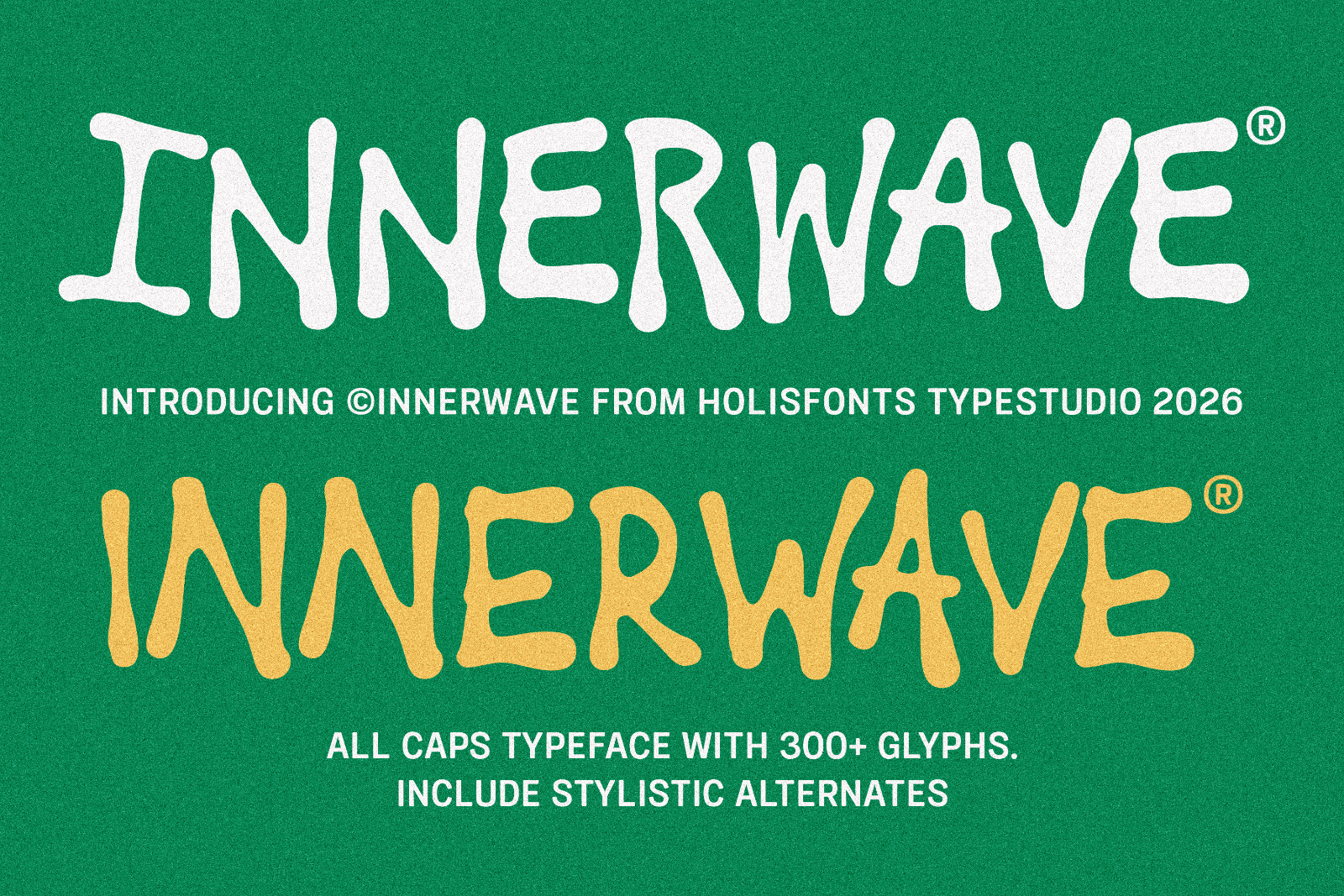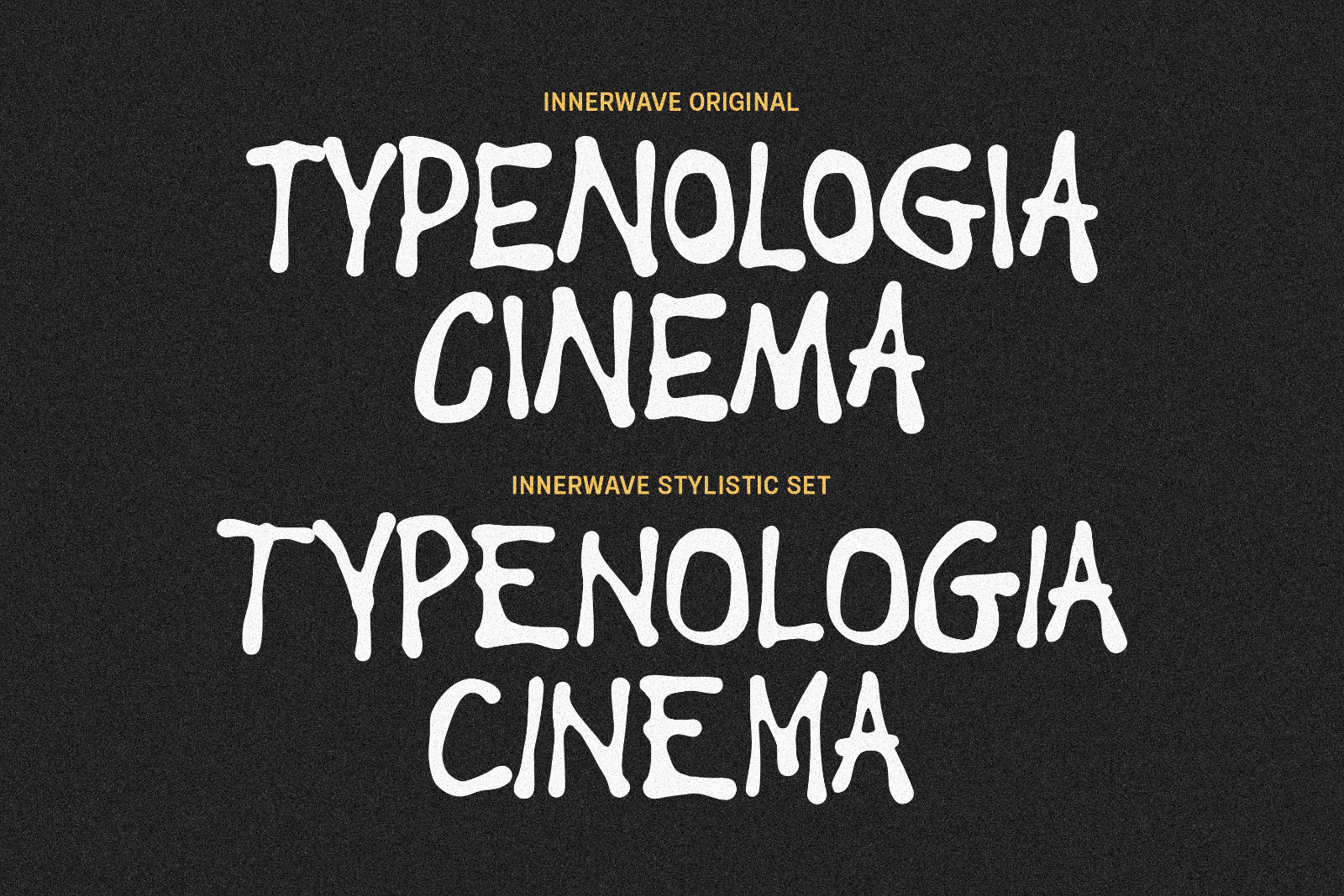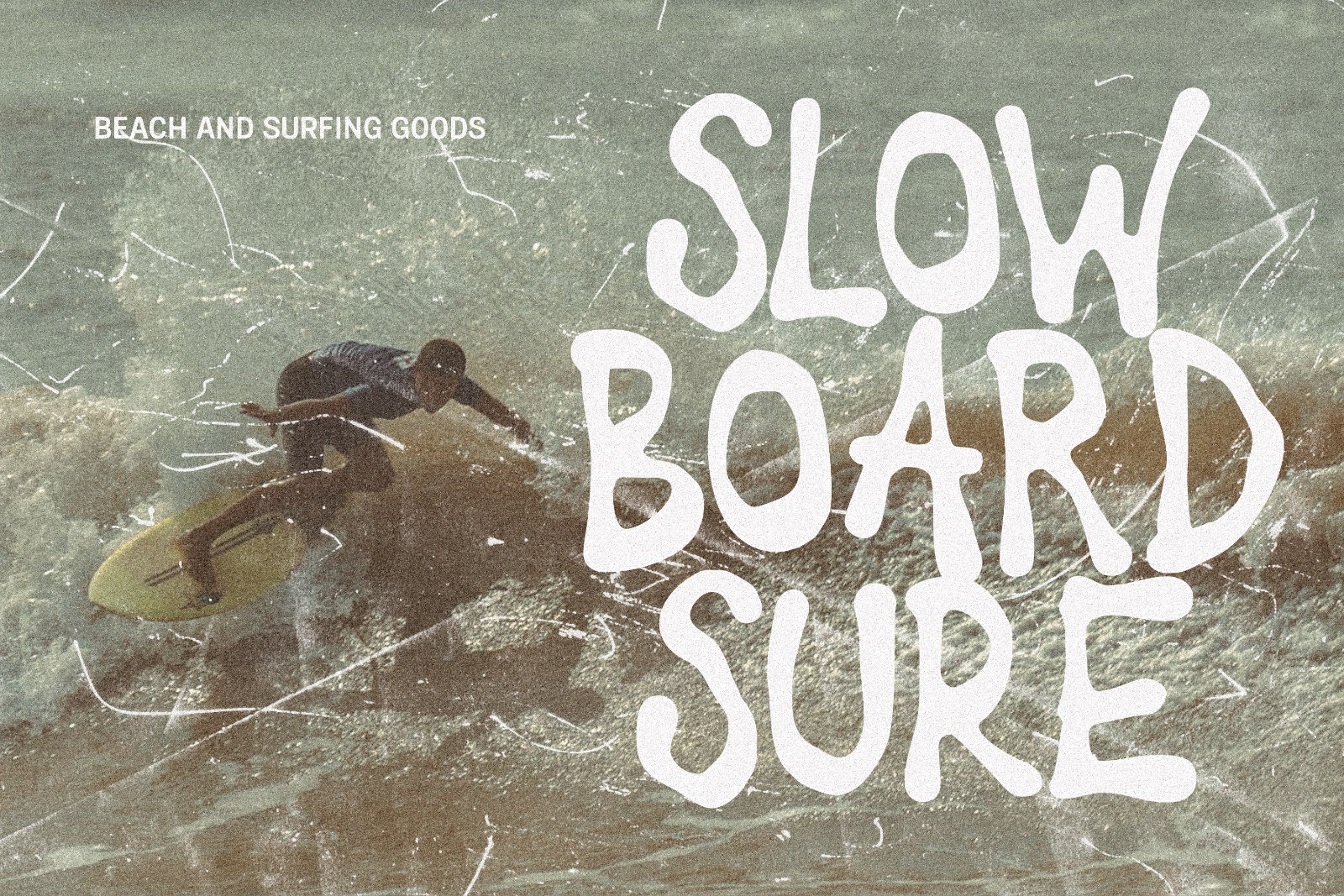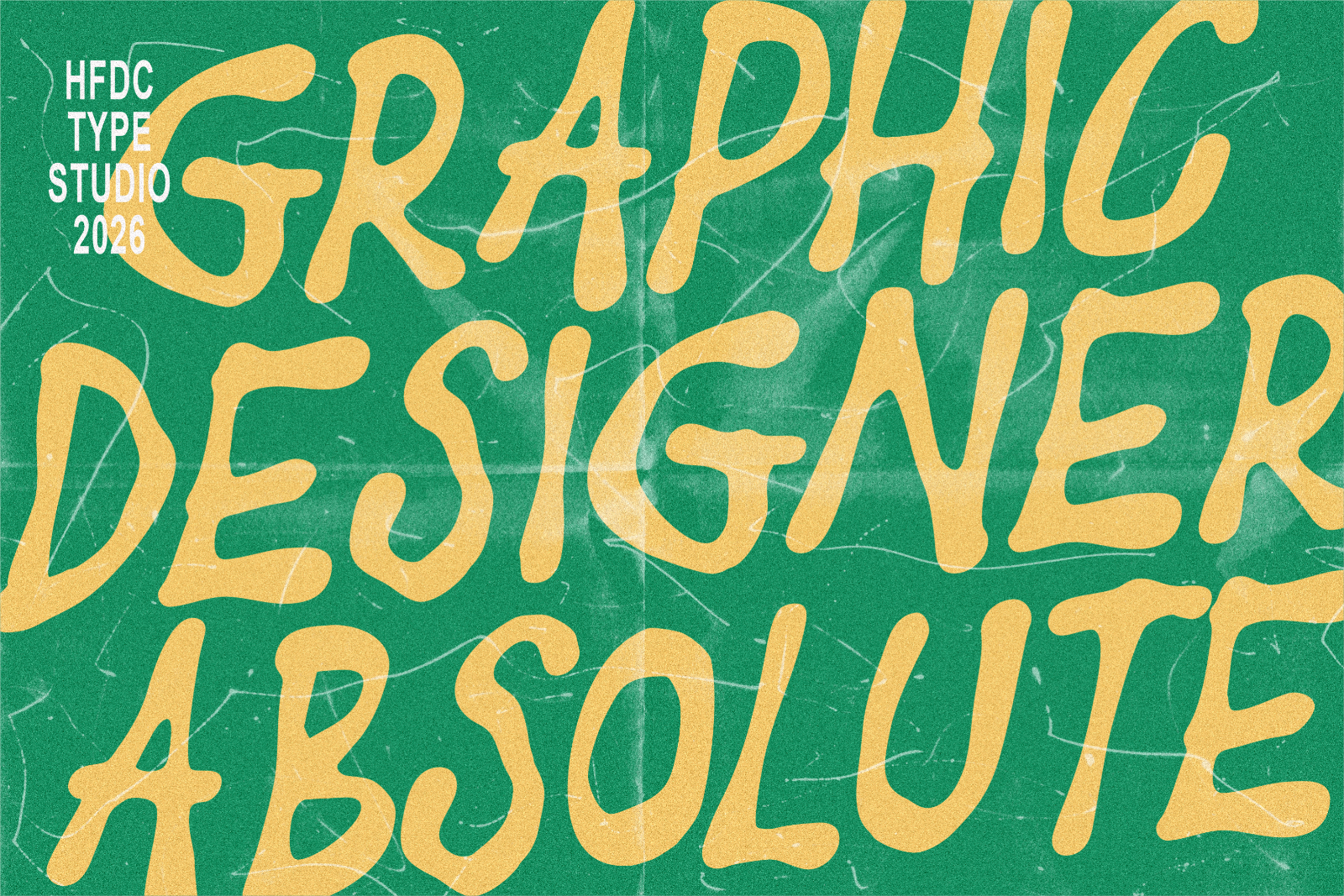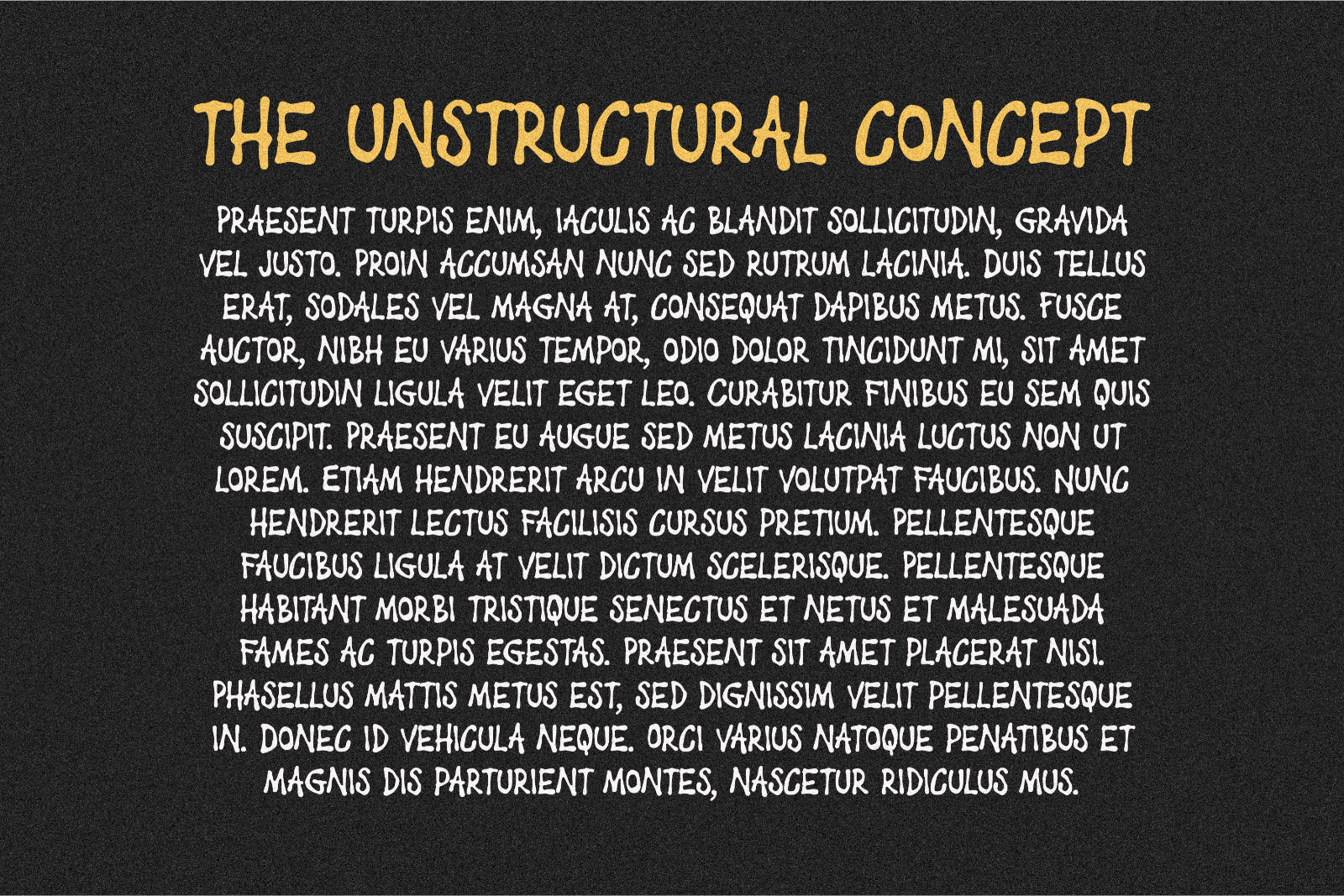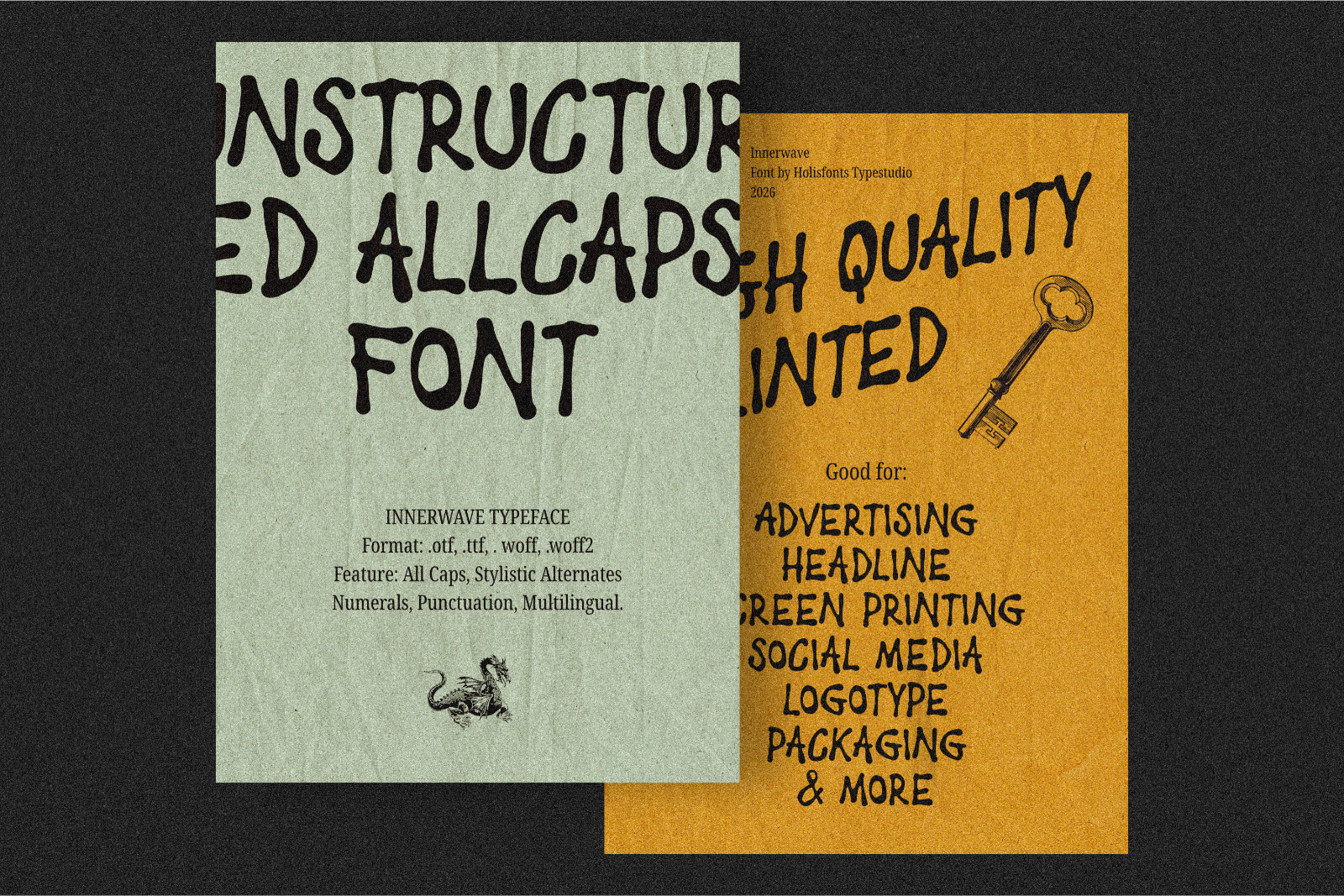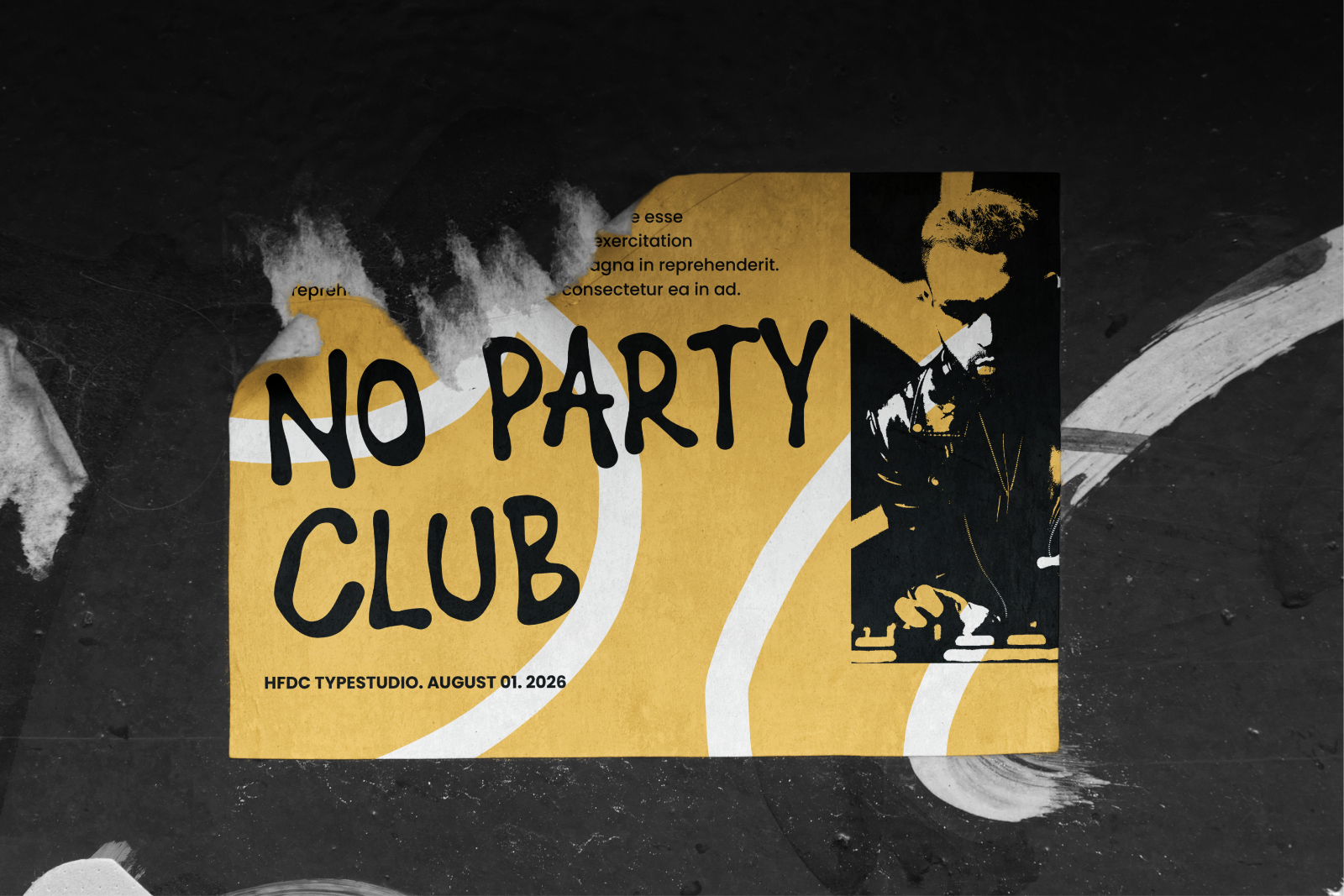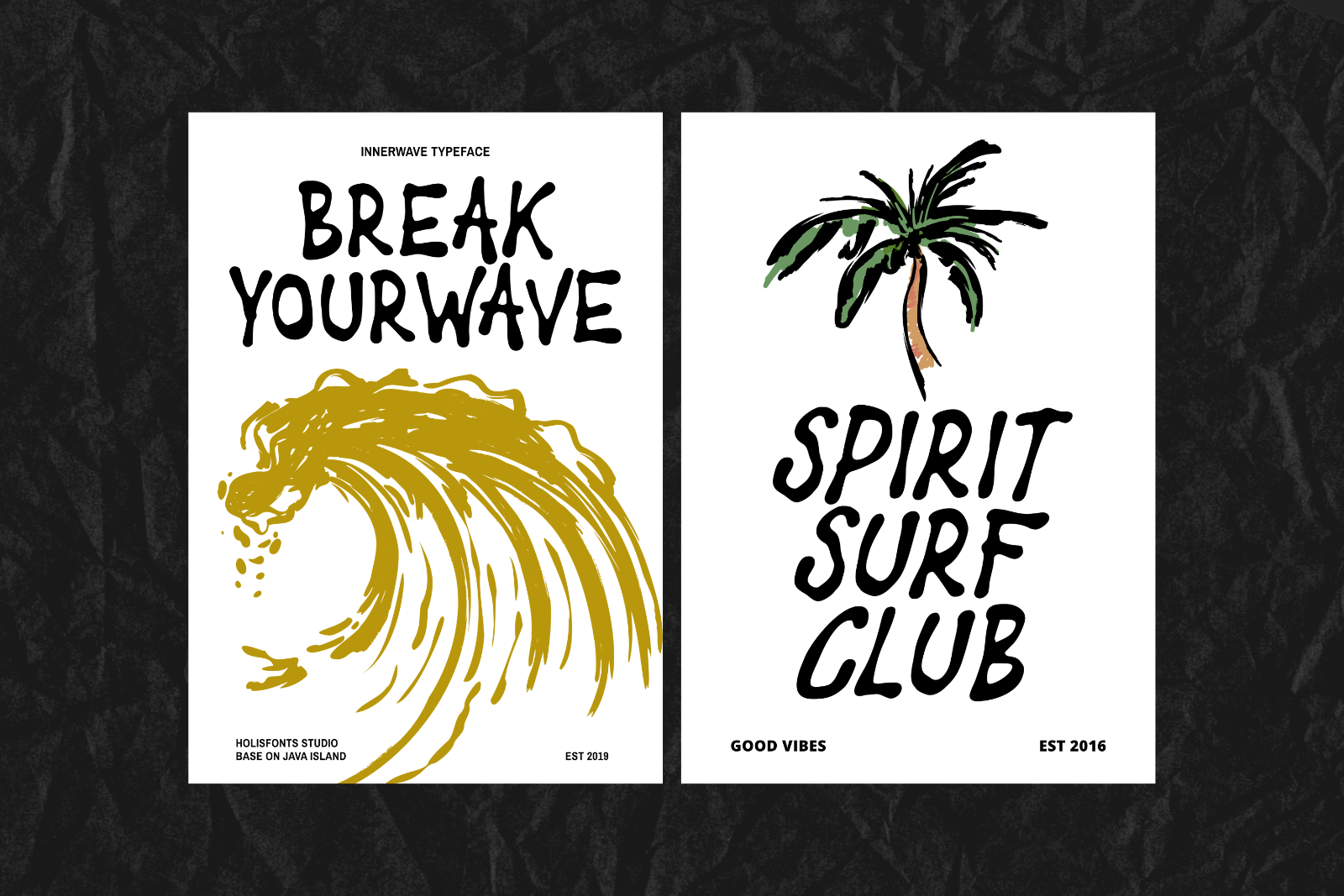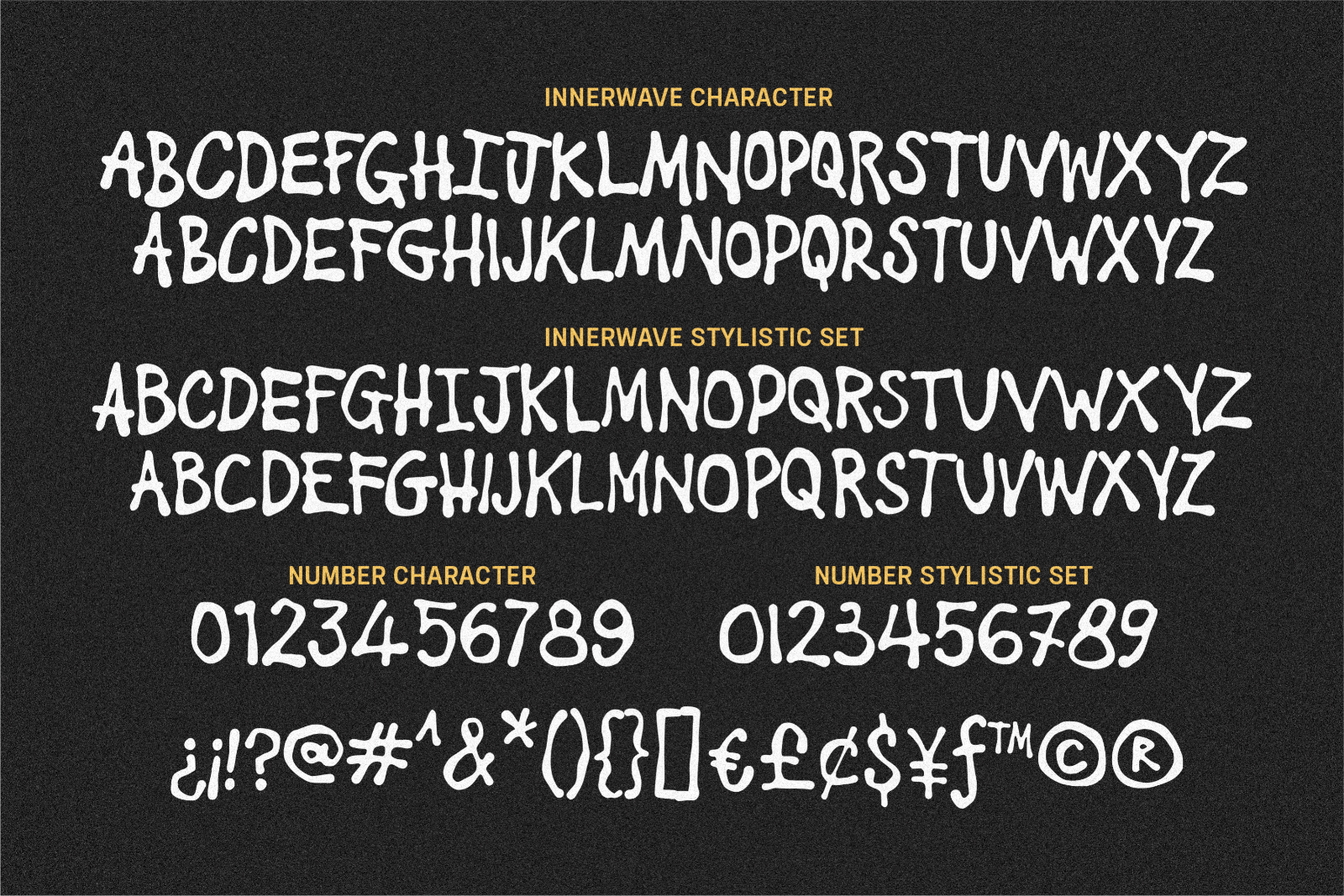
Bring organic energy and raw, textured attitude to your designs with Innerwave, a realistic, all-caps brush typeface. Handcrafted to mimic natural ink flow and distressed spray paint, Innerwave is built for bold headlines, streetwear branding, and raw, high-impact poster designs.
• Two Stylistic Sets: Regular and Oblique
• Punctuation
• Number
• Stylistic Alternates
• 300+ Glyphs
• Realistic Textured Edges
This versatile display font is ideal for apparel/streetwear design, surf and skate graphics, gig posters, music album covers, packaging, and social media branding that demands a raw, energetic aesthetic.